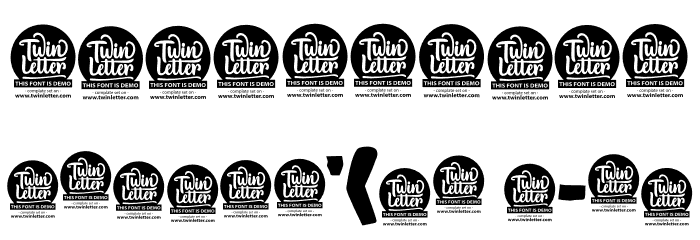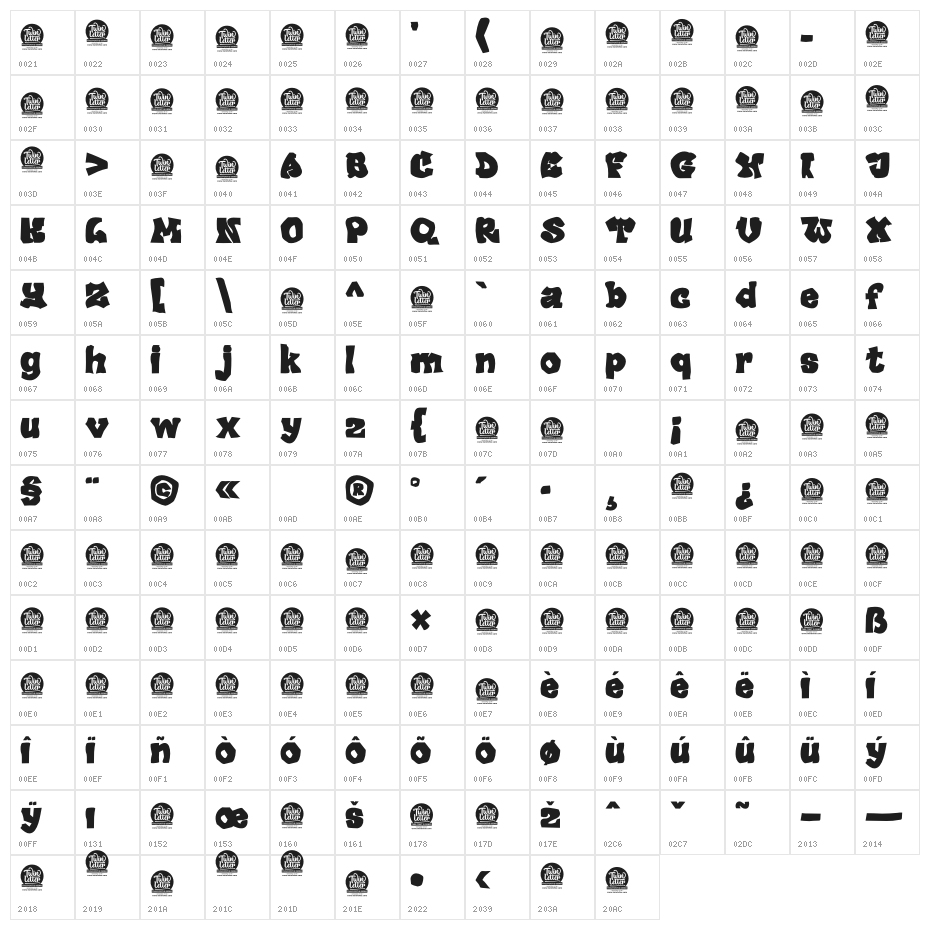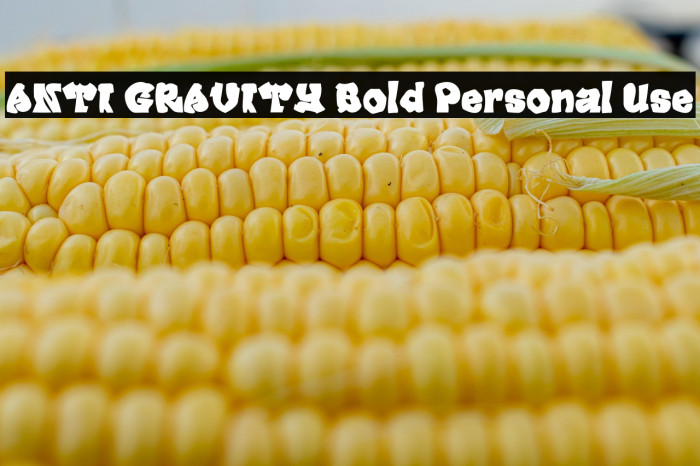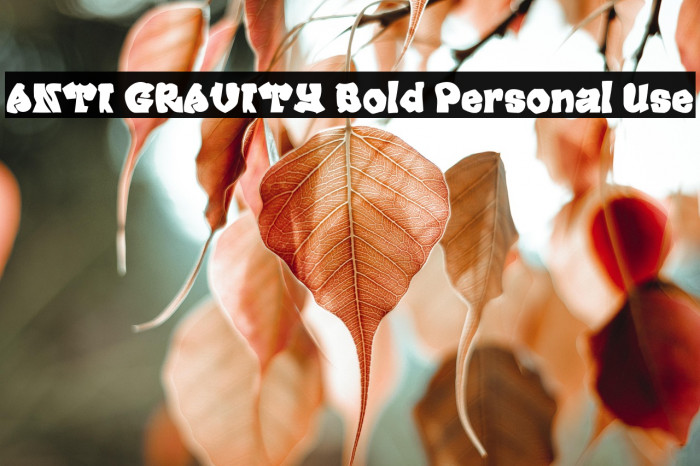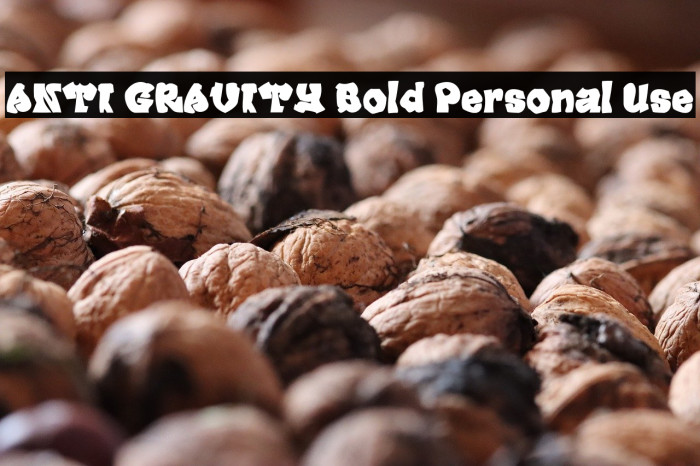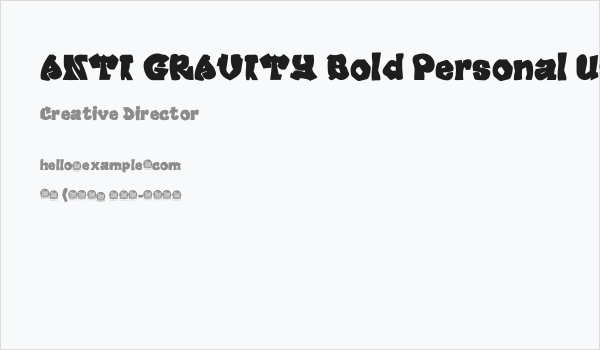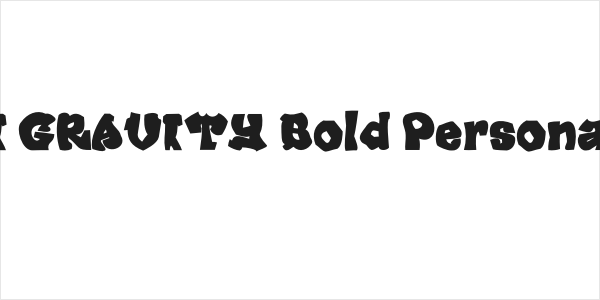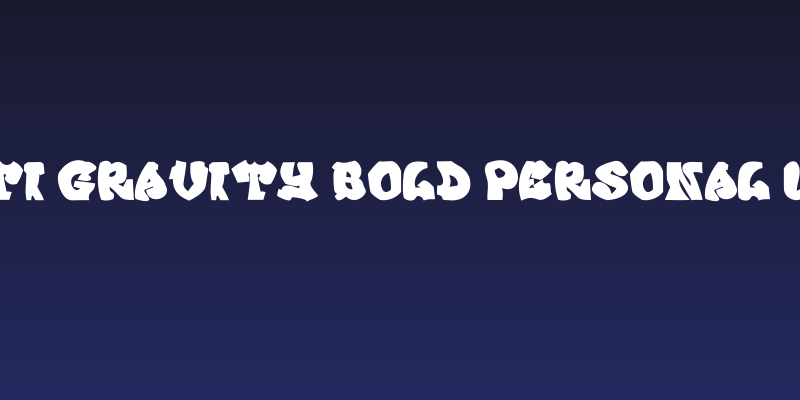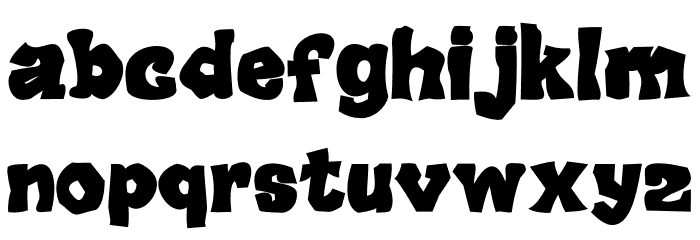
ANTI GRAVITY Bold Personal Use Font
ANTI GRAVITY Bold Personal Use Description
This bold and dynamic font features a playful and energetic style, characterized by its thick, uneven strokes and exaggerated curves. The letters have a whimsical, almost cartoon-like appearance, making them stand out with a sense of movement and flair. The uppercase and lowercase characters maintain a consistent boldness, while the numbers and special characters complement the overall aesthetic. This font's unique design is perfect for capturing attention and adding a lively touch to any project.
| Overall Style | Playful, Energetic, Whimsical |
| Proposed Projects | Ideal for posters, children's book covers, playful branding, and eye-catching headlines. |